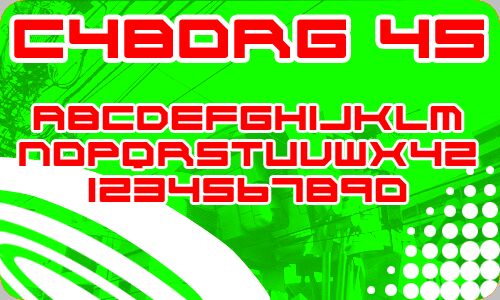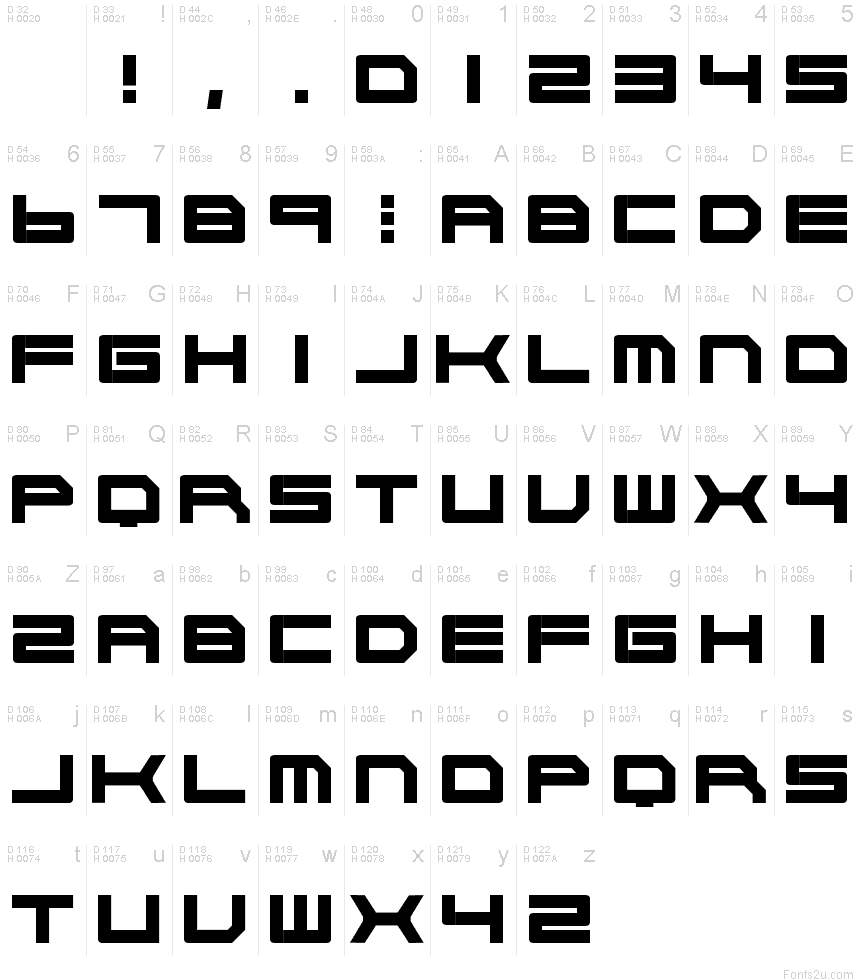
Cyborg45
Cyborg45 font is a free techno display typeface with the hard-edged swagger of a cockpit readout. Its broad, squared shapes, sliced corners, and tight modular rhythm give every word a machined, futuristic weight, so short headlines feel crisp, loud, and unmistakably digital.
Using Cyborg45 works beautifully for game titles, sci-fi posters, esports branding, DJ flyers, tech event headers, YouTube thumbnails, and gadget packaging. This free font reads best big; pair it with a clean neutral sans to keep the futuristic attitude sharp instead of chaotic.